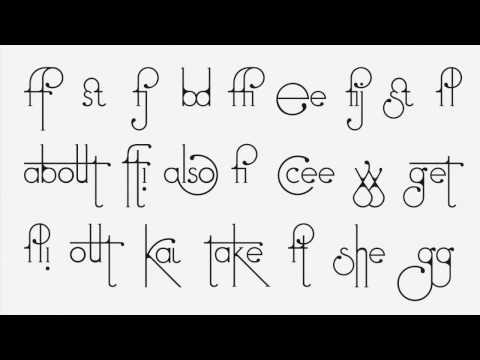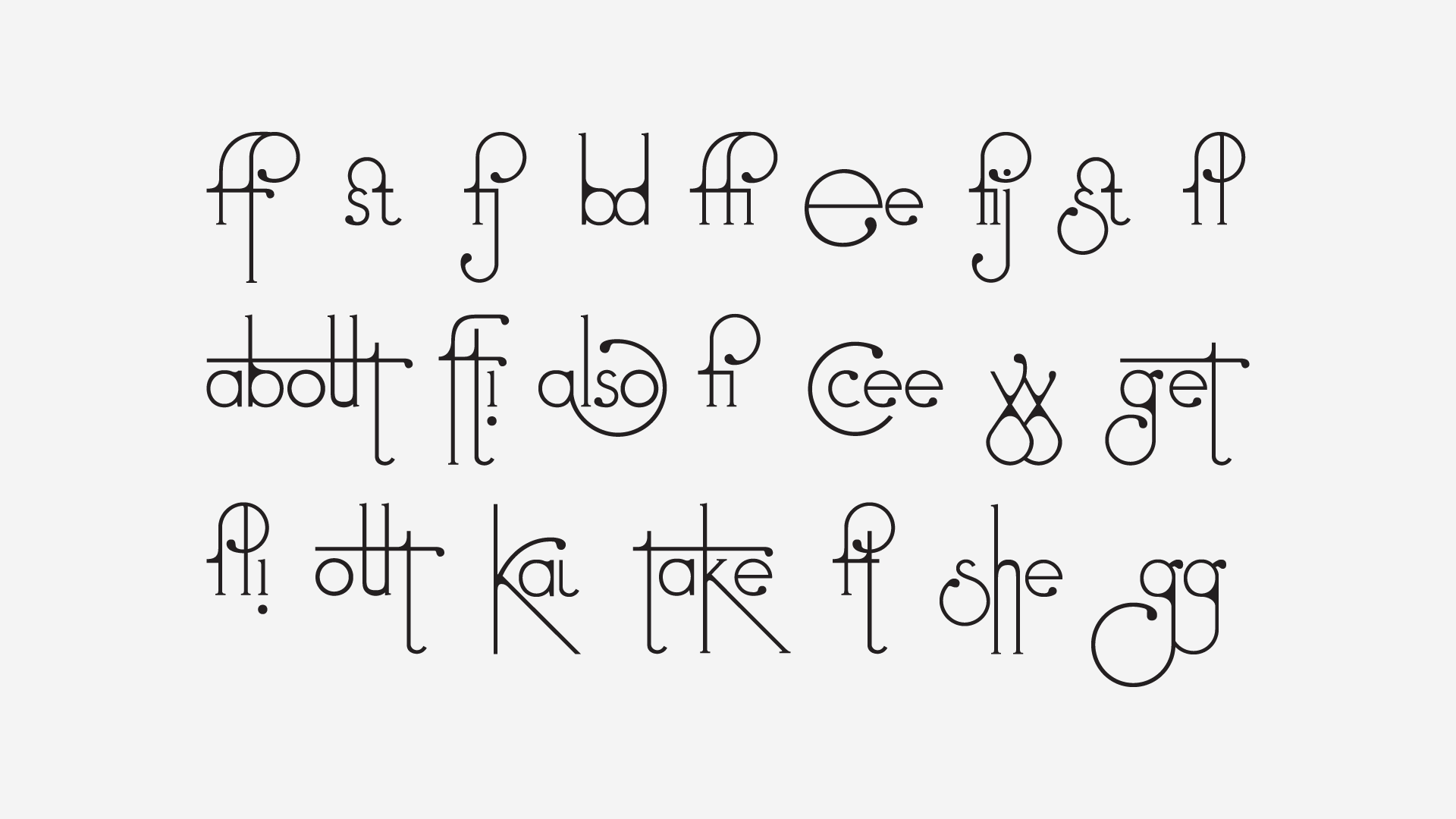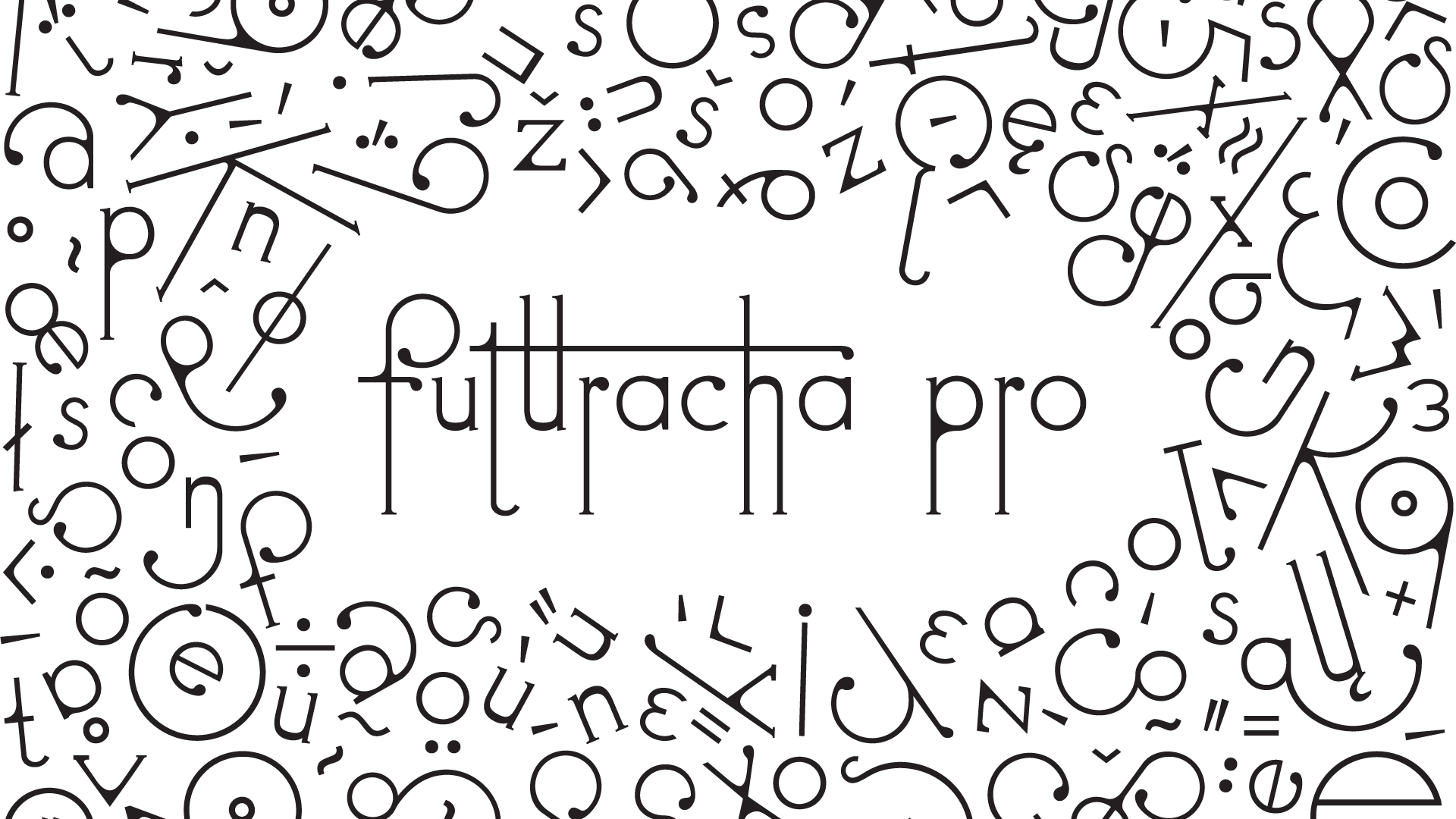
This is Odysseas Galinos Paparounis, høly’s CEO and designer of Futuracha, and I am happy to introduce you to our latest project, Futuracha Pro!
Futuracha Pro is an Open Type Font that magically adjusts and readjusts as you write based on the preceding and following letter!
Its quirkiness and eccentricity made it one of the most beloved fonts all over the world, with its predecessor, Futuracha, counting more than 250,000 downloads by creatives from more than 180 countries during the last five years.
@odysseas_gp any insights into how the magic works?
To be frank, there’s no magic - there is a lot of design process which provides a great variety of ligatures and letter combinations assuring that the user will actually have a wide range of options to experiment and play with!
Designing different letter variations and combinations will soon bring us in front of one word able to be written in even seven different ways!